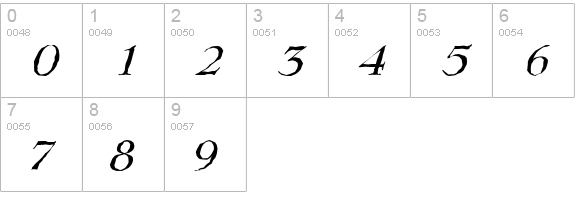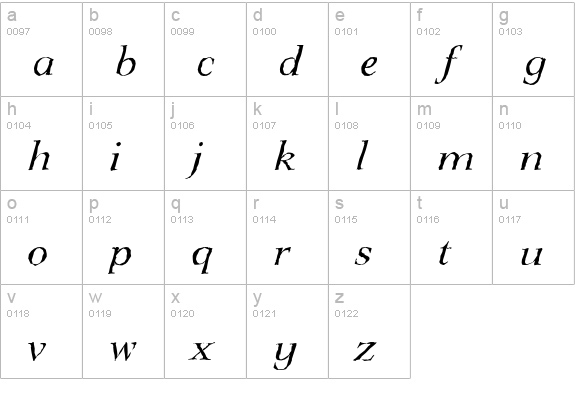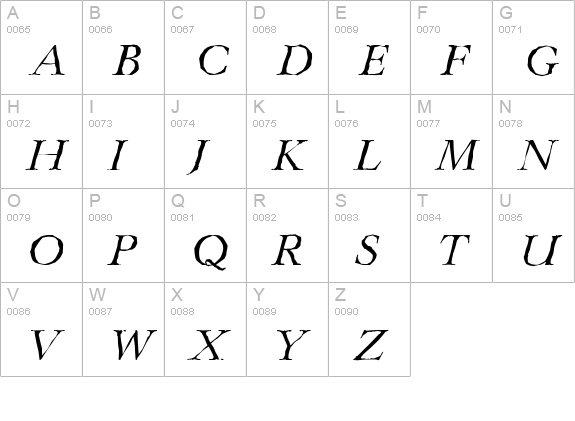
LingwoodAntique-Italic Font Details
LingwoodAntique-Italic is a distinctive, italic variant in the LingwoodAntique typeface family \xE2\x80\x94 well suited to design and typography projects.
LingwoodAntique-Italic font is a timeless and elegant typeface that exudes sophistication and charm. With its delicate curves and graceful strokes, this font adds a touch of class to any design project. The italic style of LingwoodAntique enhances its uniqueness and versatility, making it perfect for a wide range of applications such as invitations, branding, and editorial designs. What makes LingwoodAntique-Italic font even more appealing is that it is available for free download at FontsMarket.com. This means that you can easily access this exquisite typeface and use it to elevate your creative projects without any cost. Don't miss the opportunity to enhance your designs with the beauty and refinement of LingwoodAntique-Italic font, now available for free at FontsMarket.com.